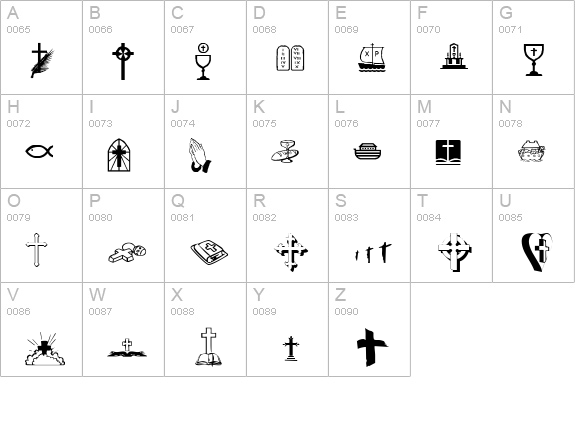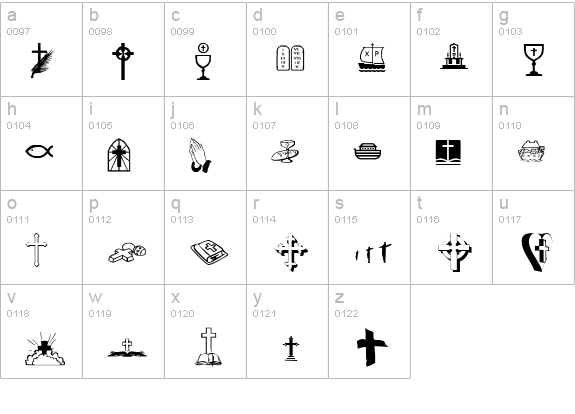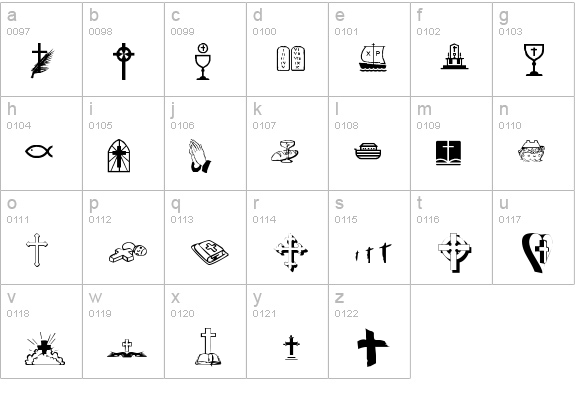
KR Lynda's Christian Dings Font Details
KR Lynda's Christian Dings font is a beautiful and intricate typeface that exudes an aura of spirituality and grace. This font features delicate and ornate lettering inspired by traditional Christian symbols and motifs, making it perfect for creating religious-themed designs and projects. With its elegant curves and intricate details, KR Lynda's Christian Dings font adds a touch of sophistication and charm to any text or design. Whether you are working on a church program, a religious invitation, or simply want to add a spiritual element to your project, this font is sure to impress. The best part? KR Lynda's Christian Dings font is available for free download at FontsMarket.com. Now you can easily access this beautiful font and use it in your designs without any cost. So why wait? Download KR Lynda's Christian Dings font today and add a touch of divine inspiration to your creations.